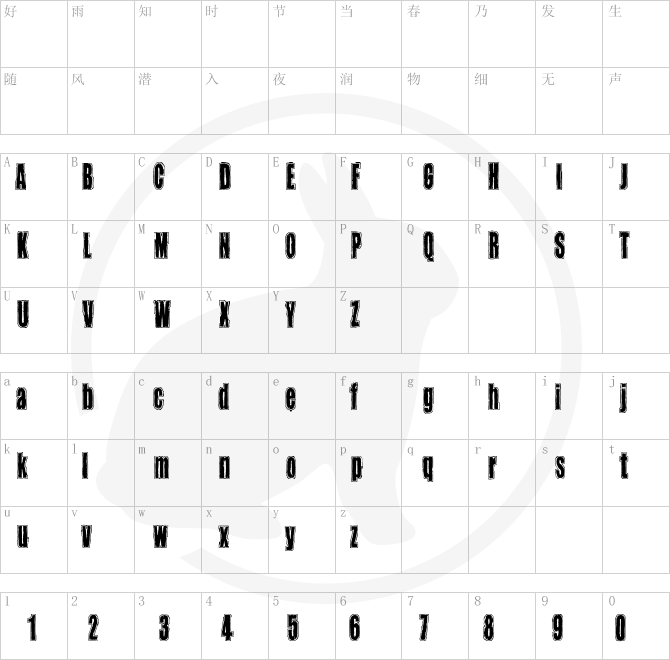
- Font Name:Takapiru2
Takapiru2.ttf is a very beautiful artistic font, Takapiru2.ttf is widely used in the design and printing of various books and pictures,Takapiru2.ttf has a strong visual impact,Takapiru2.ttf is a commonly used font in newspapers, magazines and books, and is used in posters, e-commerce Poster design, store design, logo design, font design and other fields.Takapiru2.